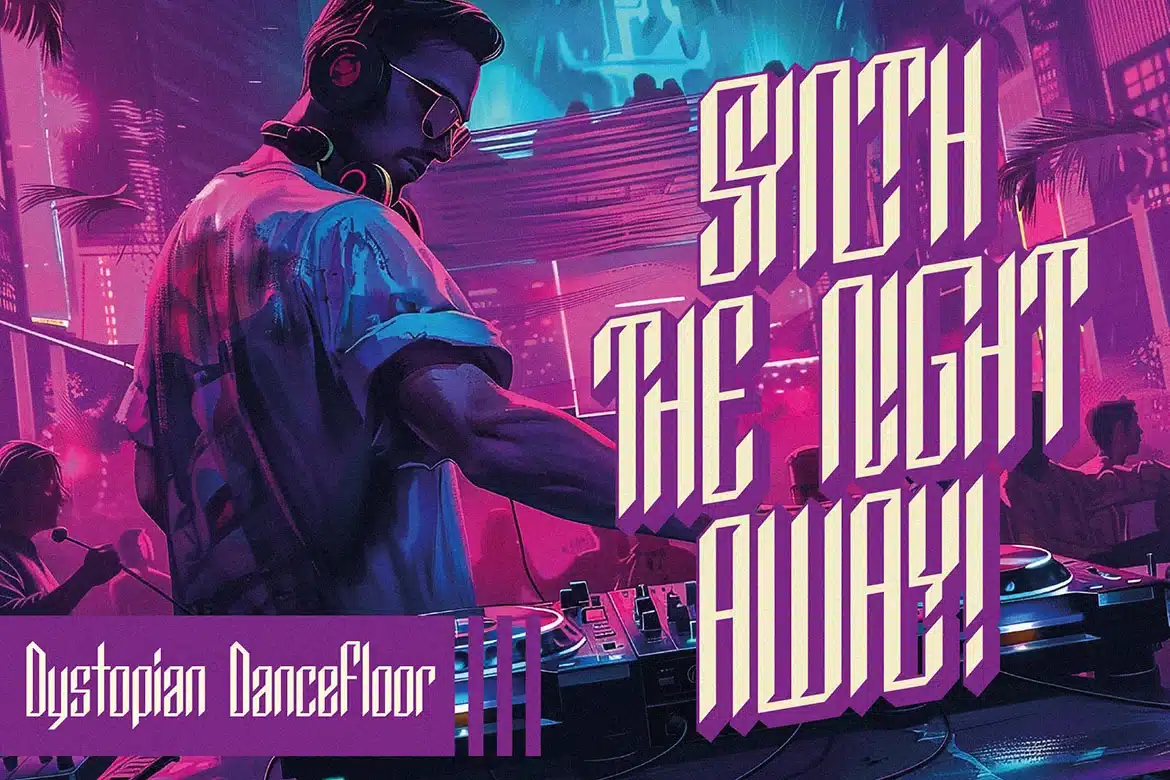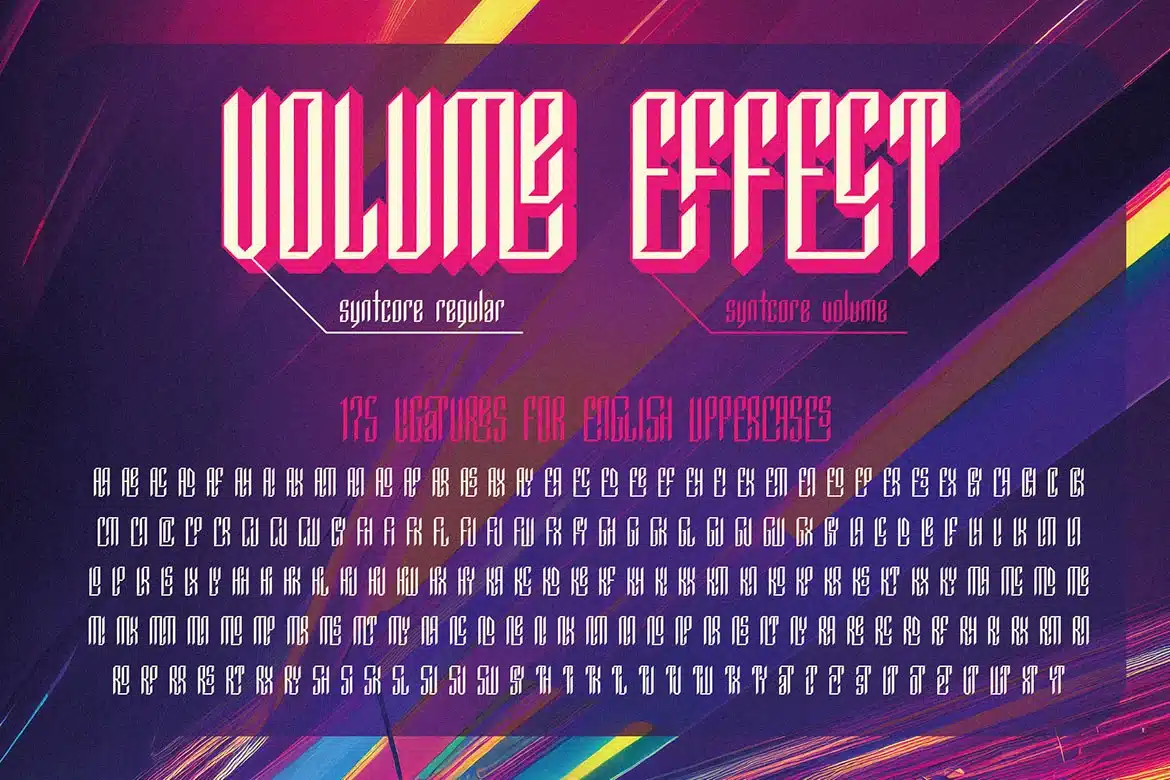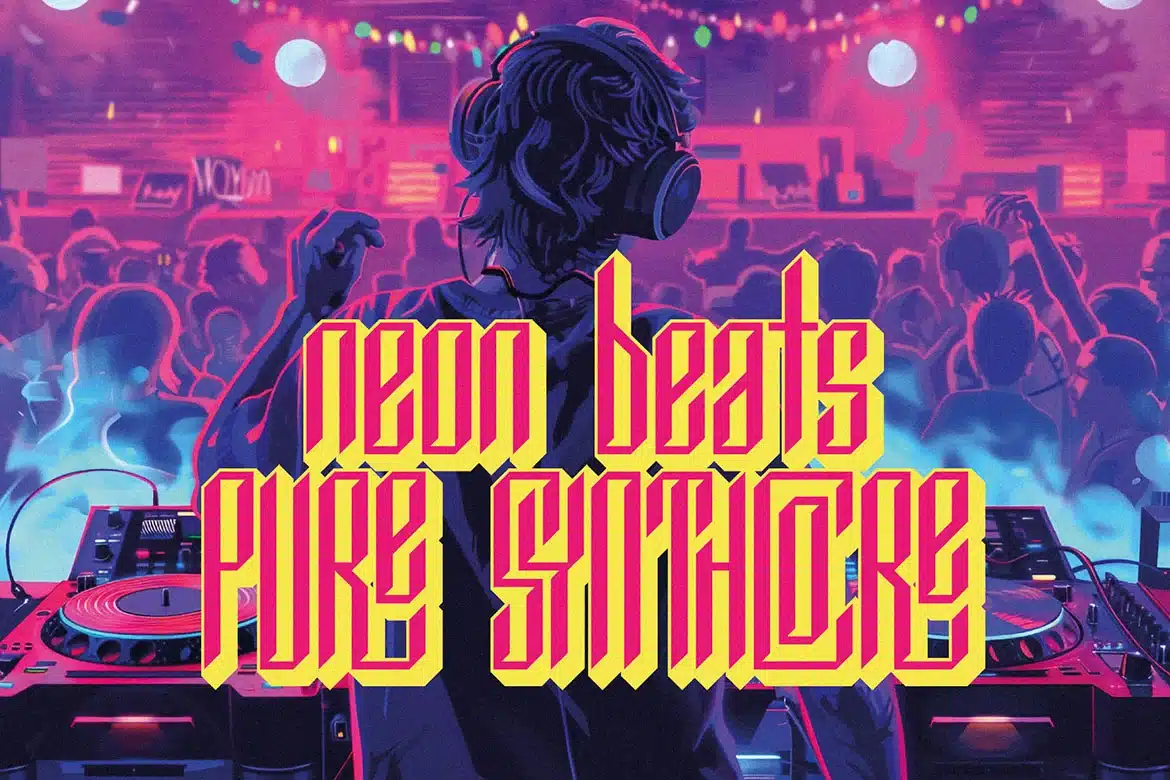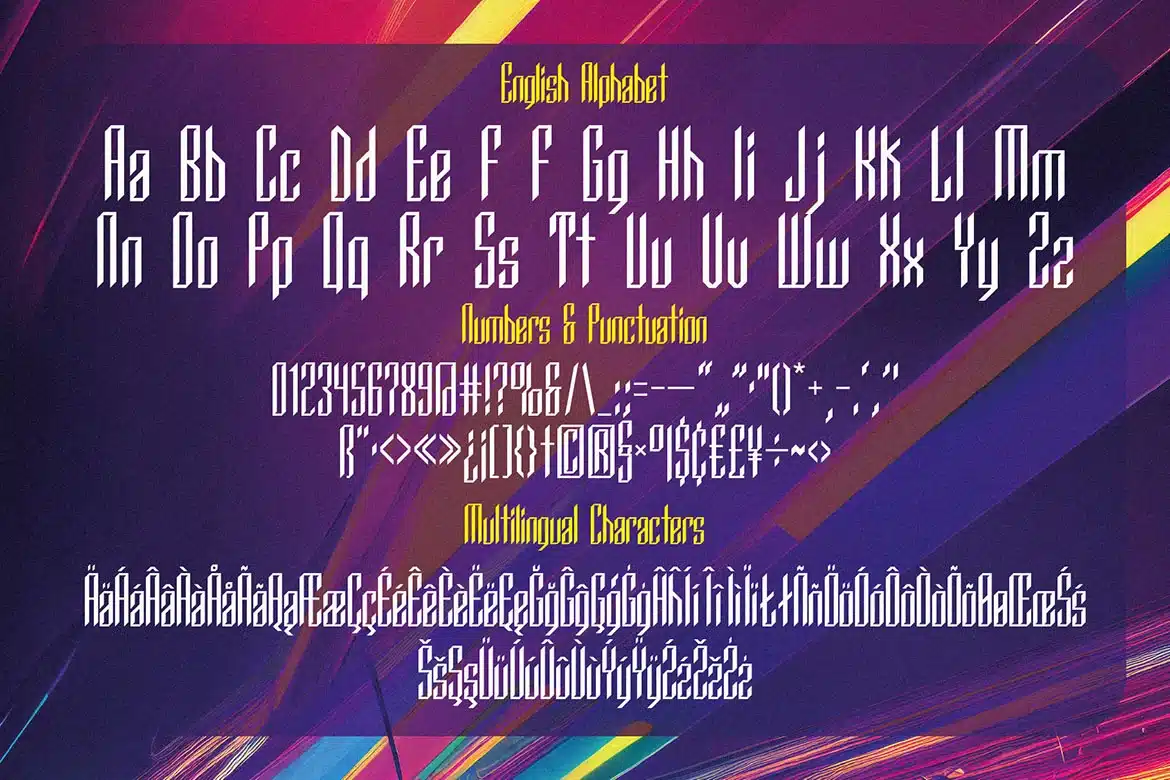
Synthcore – Fututristic Display Font
Condensed, playful, futuristic, sharp, blackletter, layered & sans serif display font. Comes with multilingual support, 2 font versions & 175 ligatures - great for your new logo, monogram or branding project.
- 2 font versions - regular & volume effect (layered)
- 175 ligatures
- Great for your new logo, monogram or branding project